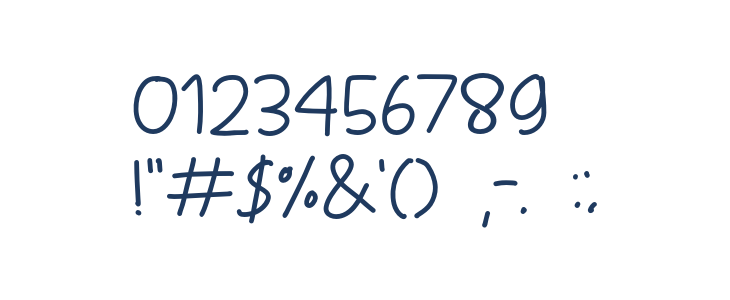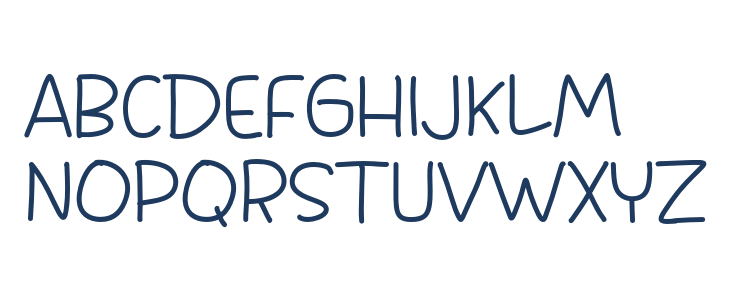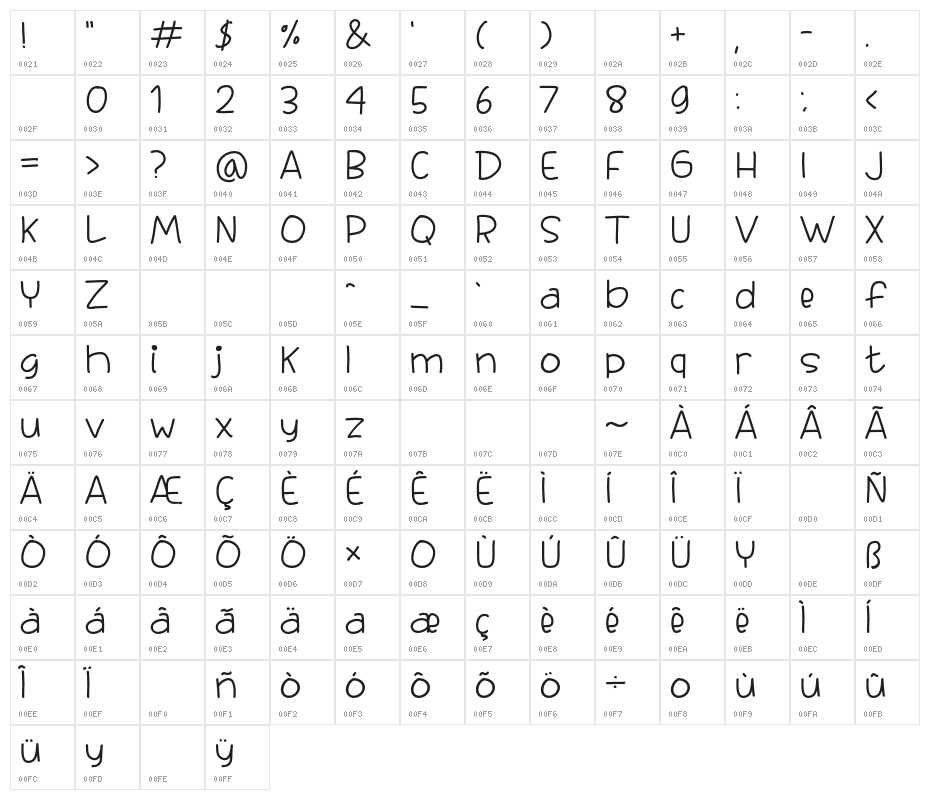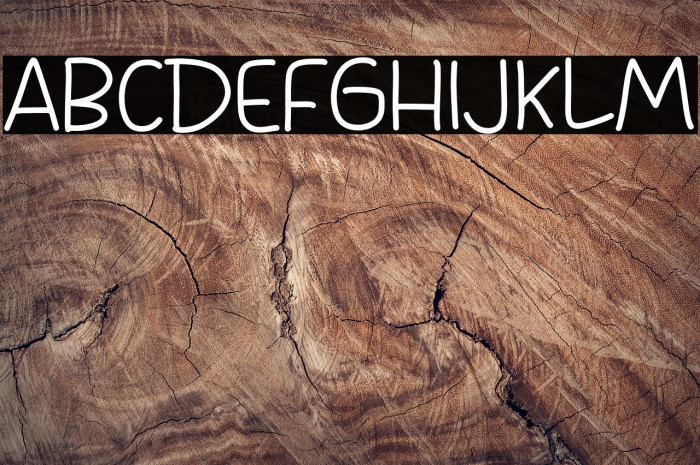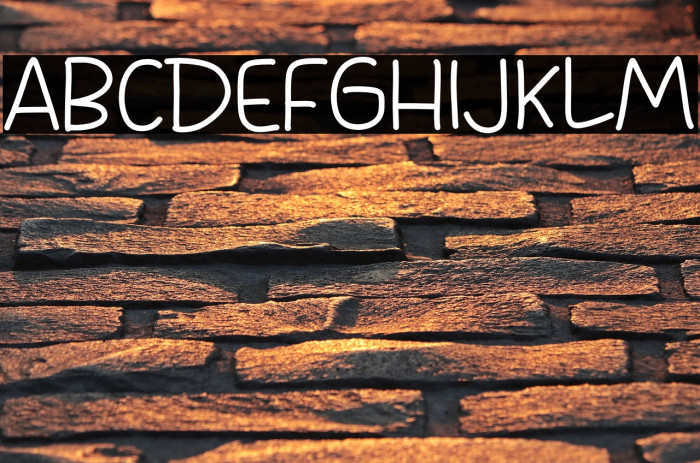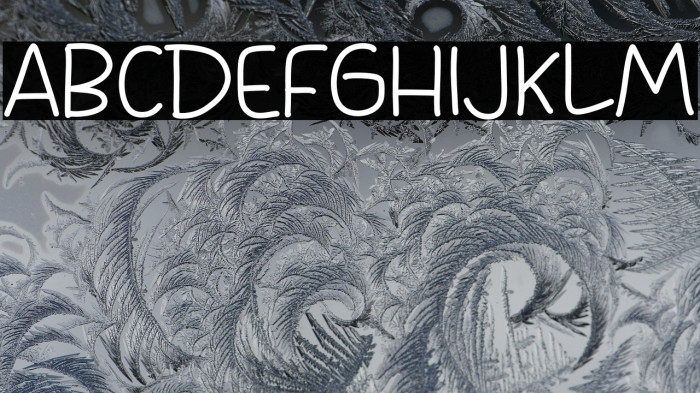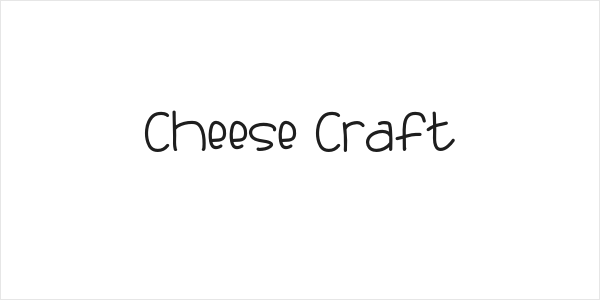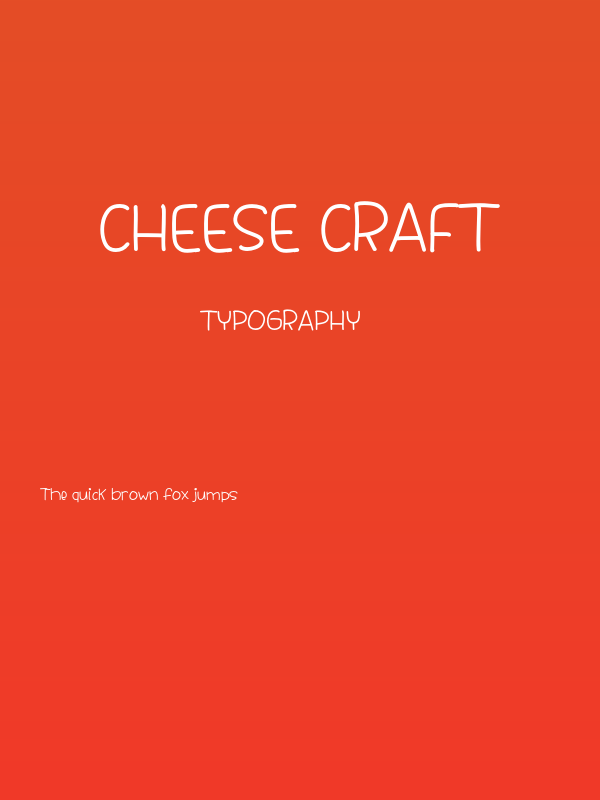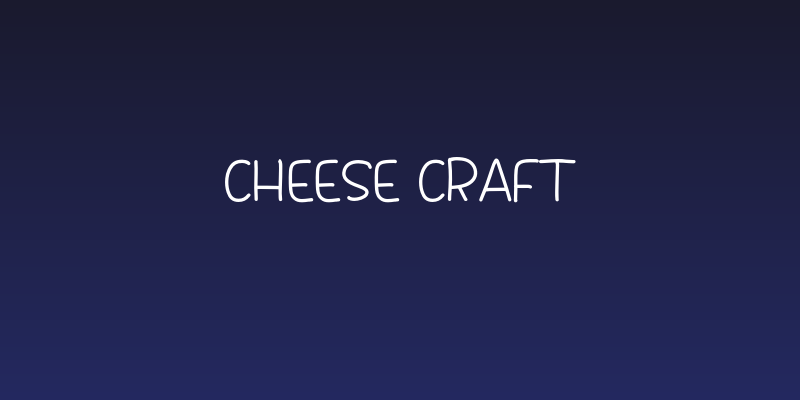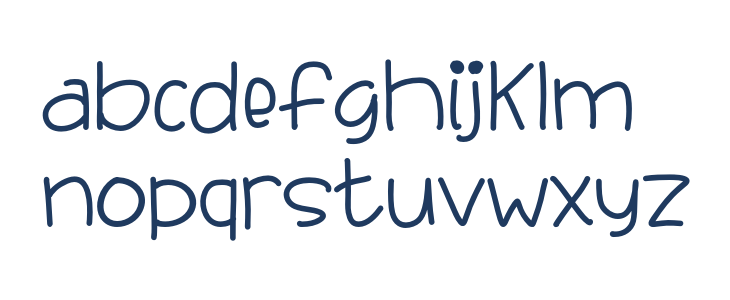
Cheese Craft Font
Cheese Craft Description
A casual, hand-drawn sans-serif font with rounded edges and a playful, informal style. The characters have a consistent stroke width with slight irregularities that mimic natural handwriting.
| Overall Style | Casual, playful, informal |
| Use Case | Headlines, body text in informal contexts, logos for playful brands |
| Proposed Projects | Children's books, casual invitations, educational materials, informal branding, and greeting cards. |